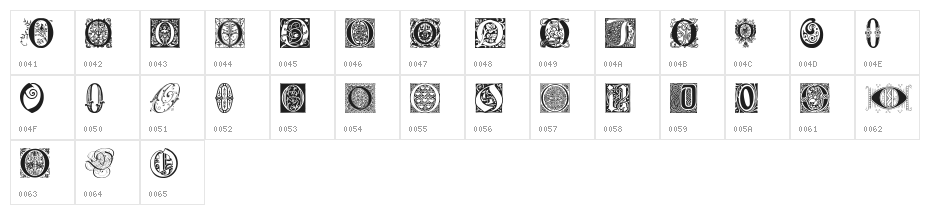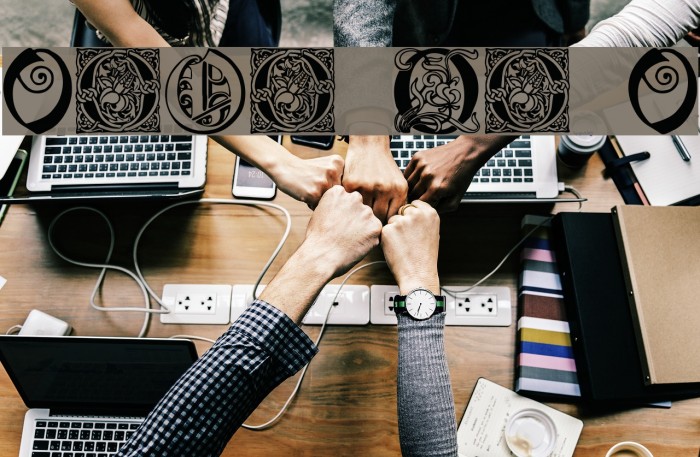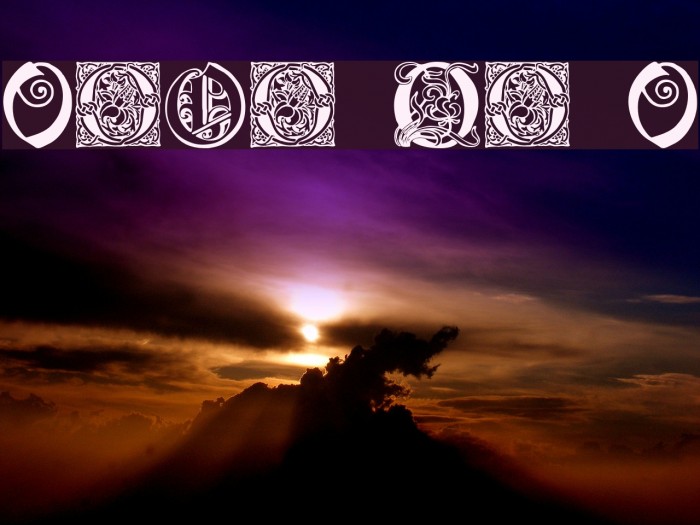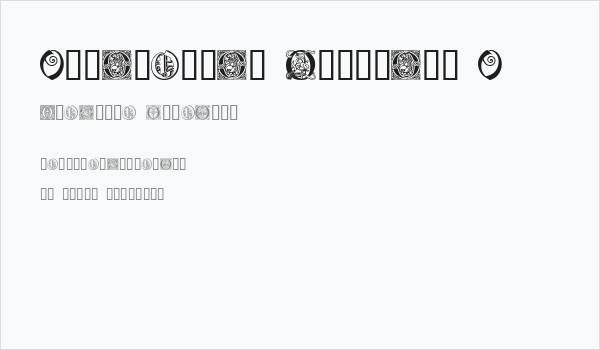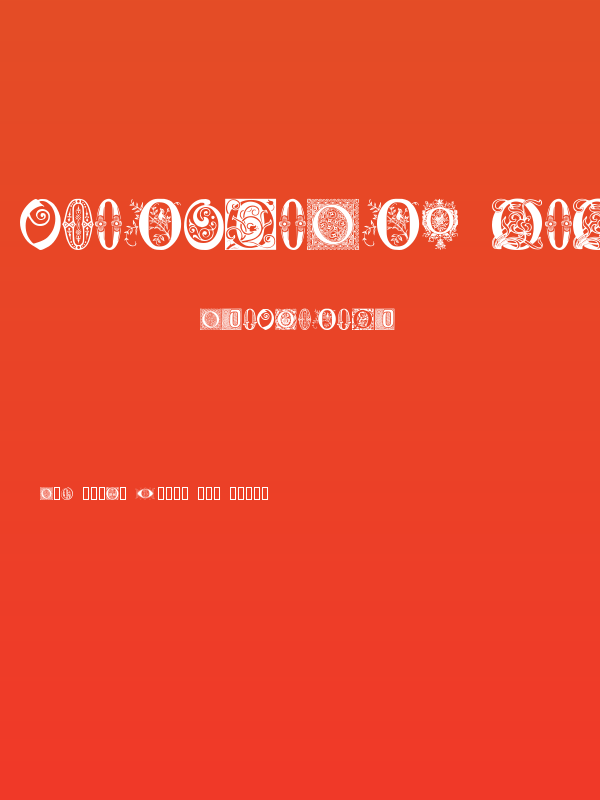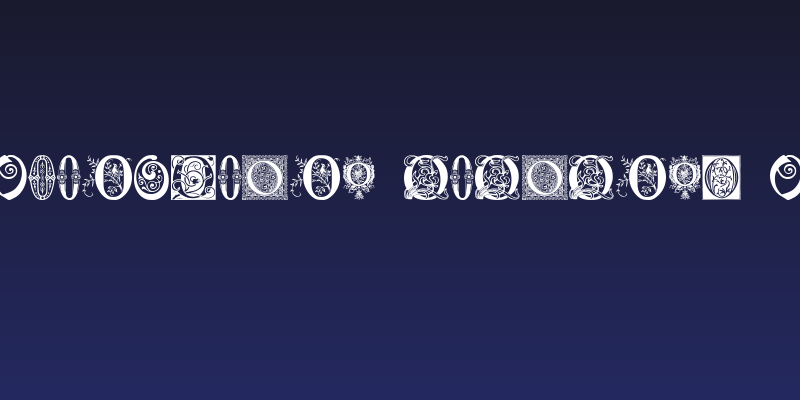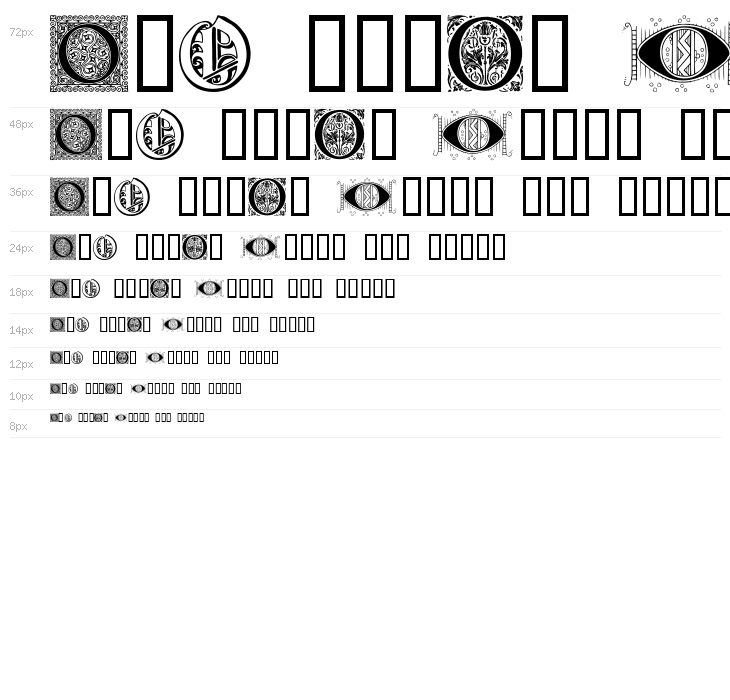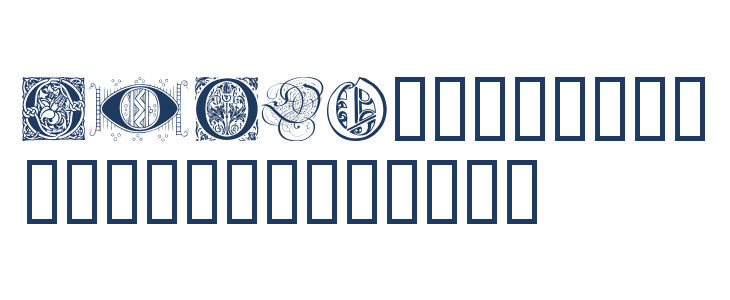
Ornamental Initials O Font
Ornamental Initials O Description
This font is a highly decorative and ornamental style, featuring intricate designs within each letter. Each character is enclosed in a square or oval frame, with elaborate patterns and motifs that evoke a sense of historical elegance. The letters are bold and prominent, with a strong emphasis on artistic embellishments. The overall appearance is reminiscent of medieval or renaissance manuscripts, making it ideal for projects that require a touch of classic sophistication and artistic flair.
| Use Case | Logos, Headlines, Decorative elements |
| Proposed Projects | Ideal for wedding invitations, historical themed events, book covers, and decorative art pieces. |